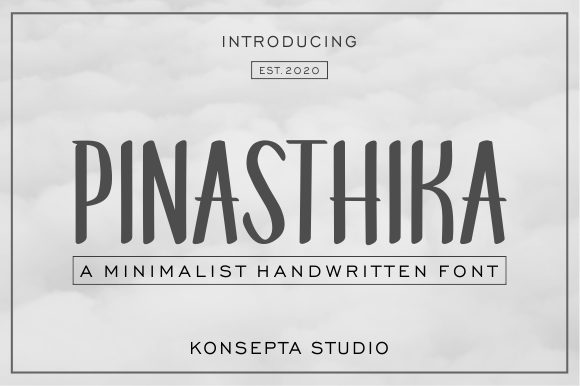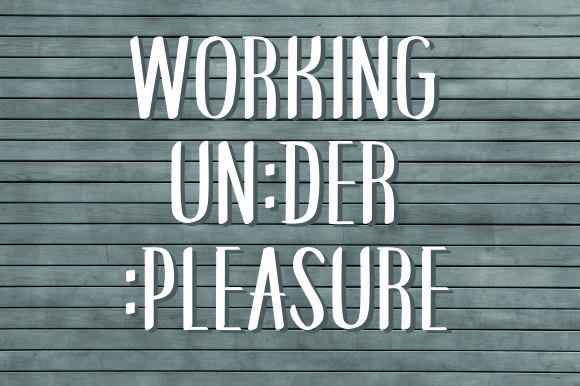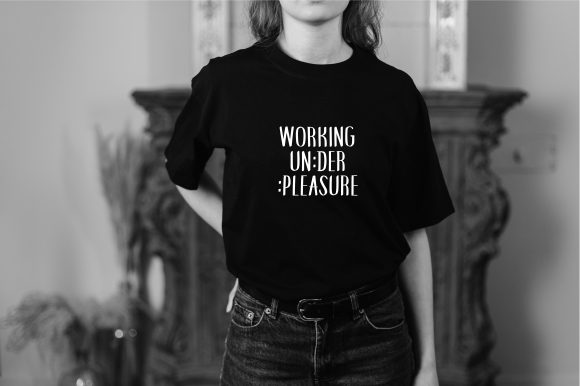
Pinasthika Font
About Pinasthika Font
Pinasthika is a creative minimalist handwritten font that is beautifully-designed with the help of a brush pen. It can easily be matched to an incredibly large set of projects, so add it to your creative ideas and notice how it makes them stand out!